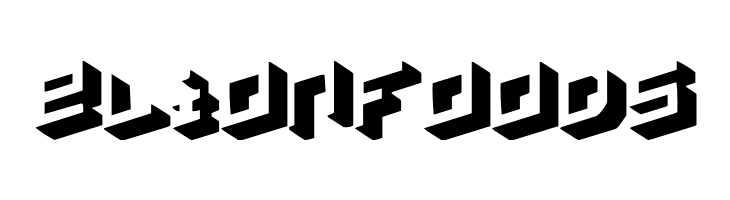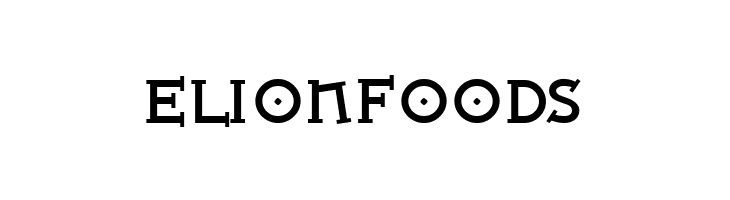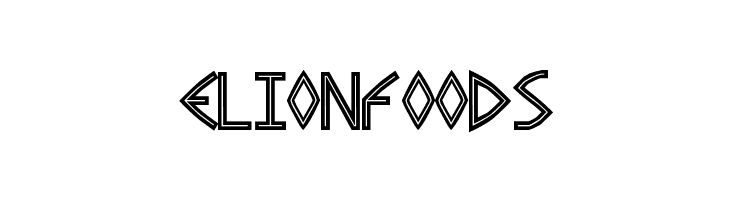
( Fonts by Klaus Johansen - www.listemageren.dK )
An intricate and decorative font with historical flair, featuring elaborate swirls and flourishes.
( Fonts by Emil Bertell - www.fenotype.com )
A bold, three-dimensional geometric font with a strong shadow effect.
( Fonts by Mr Fisk - Mike Larsson - fontorama.net )
A distressed, grungy font with a bold, textured appearance.
( Fonts by Dennis Ludlow - Sharkshock Productions )
A bold, heavy font with strong, uniform strokes for impactful designs.
( Fonts by Levi Halmos )
A bold, angular serif font with geometric elements and uppercase uniformity.
A bold, geometric font with sharp angles and a strong, architectural presence.